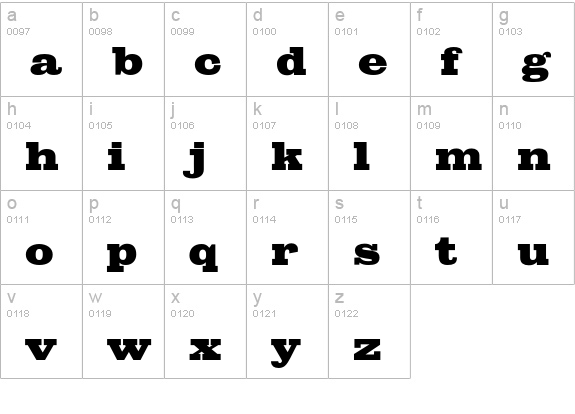
The Giza-SevenNine font is a modern and sleek typeface that exudes elegance and sophistication. Its clean lines and contemporary style make it perfect for a wide range of design projects, from branding and advertising to packaging and editorial work. The geometric shapes and sharp edges of this font give it a bold and impactful presence that is sure to grab attention. What sets Giza-SevenNine apart is not just its striking design, but also the fact that it is available for free download at FontsMarket.com. This means that you can easily access this high-quality font without any cost, making it a valuable resource for designers looking to elevate their projects without breaking the bank. Whether you're working on a logo, a poster, a website, or any other creative endeavor, Giza-SevenNine is sure to make a strong impression. Download this font today and unleash its potential in your next design project!